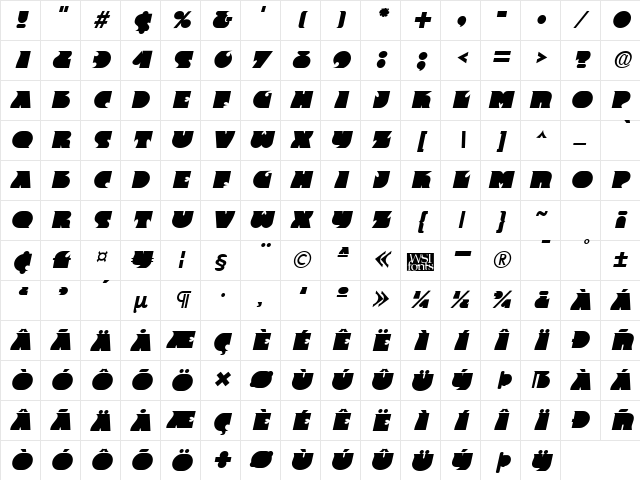
Frantic kursiv
Style: kursiv
Design Context for Frantic
Frantic is a composed and adaptable typeface that performs quietly and consistently across a wide range of design contexts. The slanted form adds forward momentum and visual energy.
Pro Tip: Use Frantic for emphasis, pull quotes, and subheadings where its slanted energy can add rhythm to the layout.